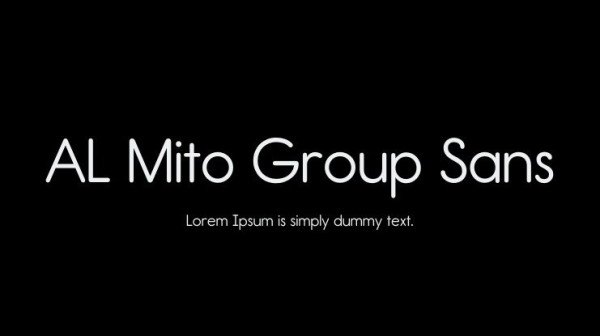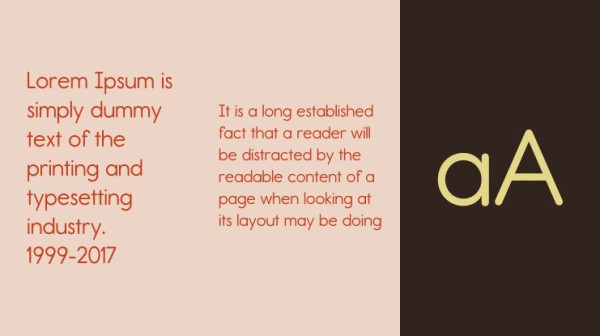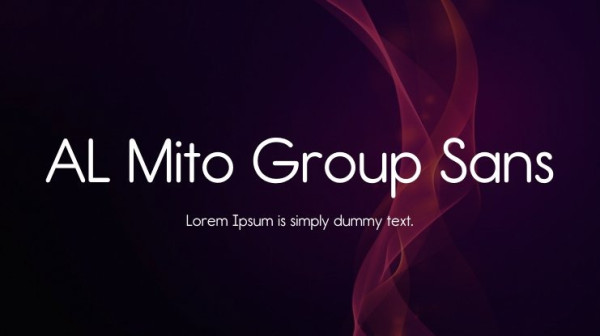
AL Mito Group Sans Font, is a sans serif stunning when combined or separately. This sans serif font style is legible and stunningly designed.
| Designer Name: | Alex Le |
| Classification: | Sans Serif Fonts, Style / Aesthetic Fonts |